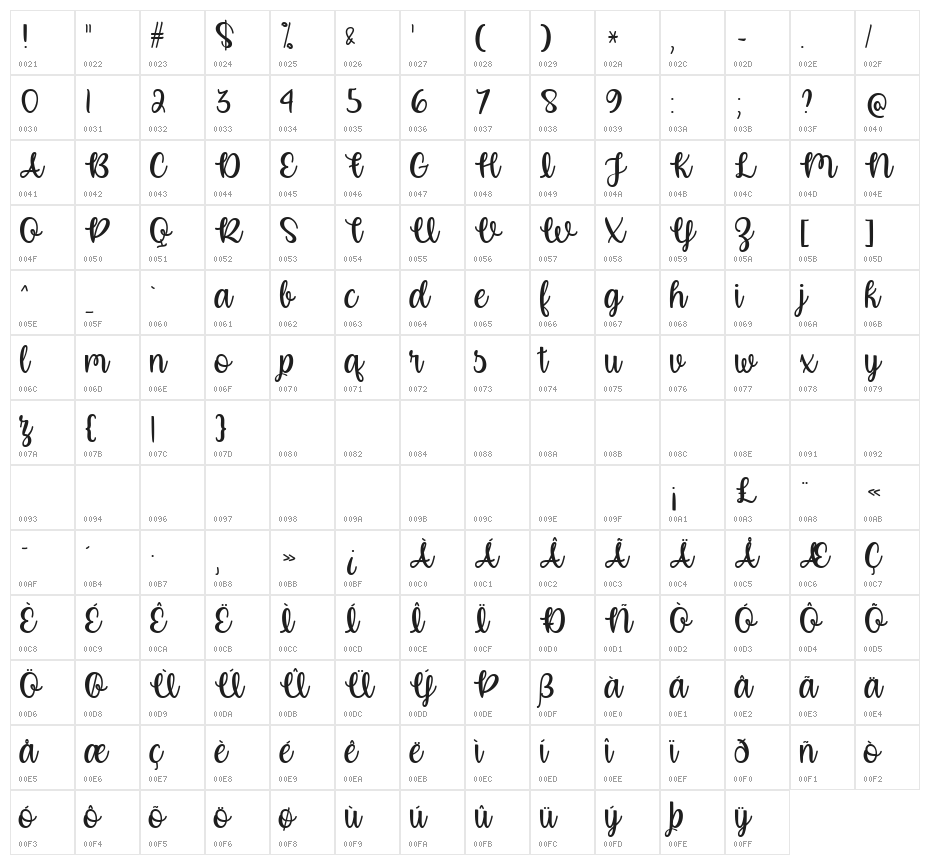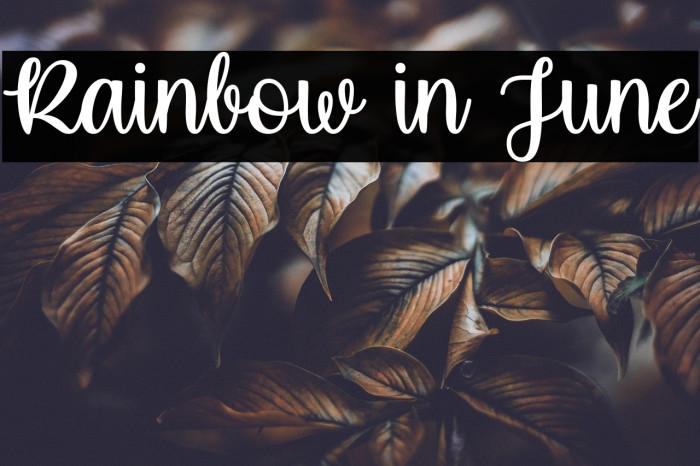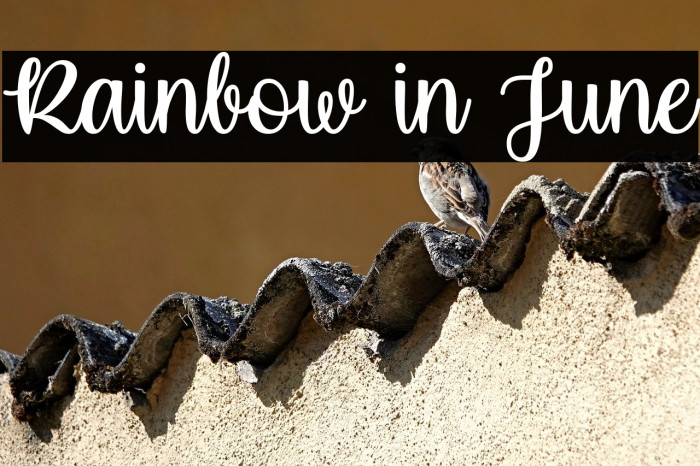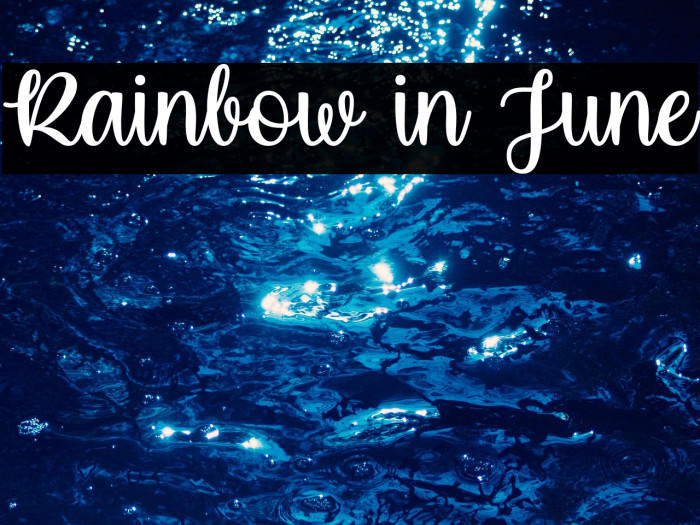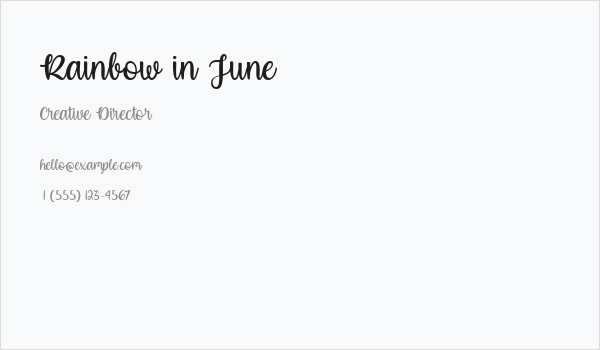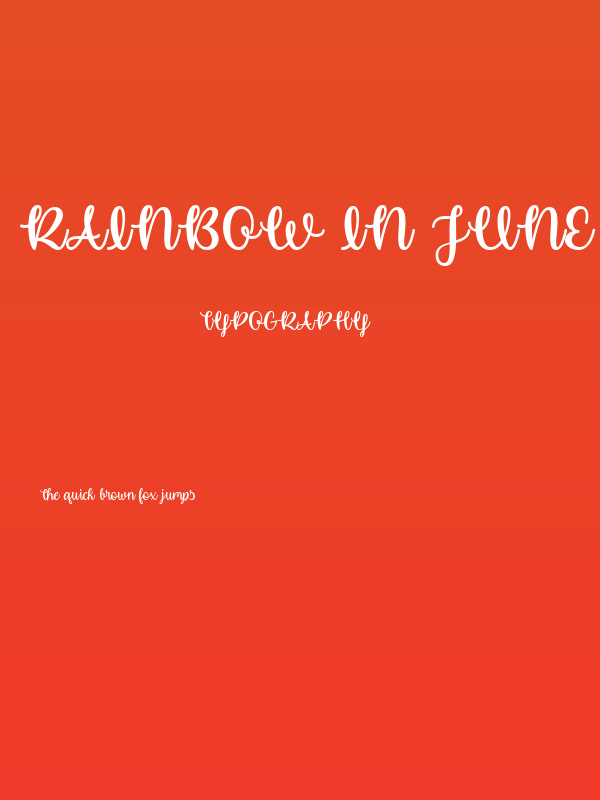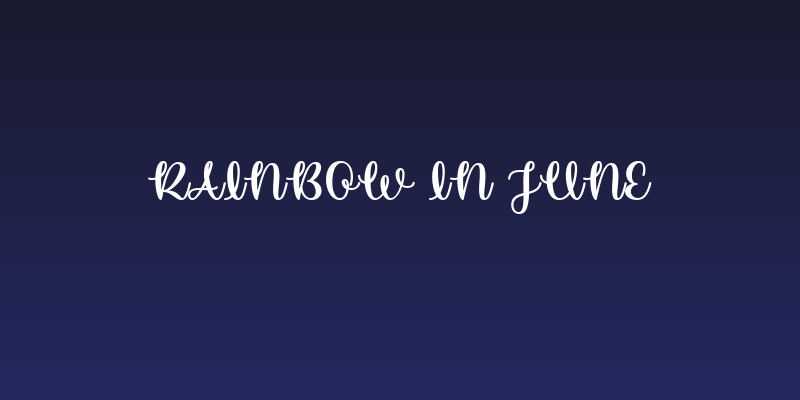
Rainbow in June Font
Rainbow in June Description
This font features a playful and whimsical script style with a handwritten feel. The uppercase letters are characterized by their flowing, interconnected strokes, giving a sense of movement and fluidity. The lowercase letters maintain a consistent style, with rounded edges and a smooth, cursive appearance. The numbers are bold and slightly rounded, complementing the overall style. Special characters are creatively integrated, maintaining the playful aesthetic. This font is ideal for projects that require a personal touch, such as invitations, greeting cards, or branding materials that aim to convey warmth and friendliness.
| Proposed Projects | Ideal for invitations, greeting cards, branding, and any project needing a personal touch. |